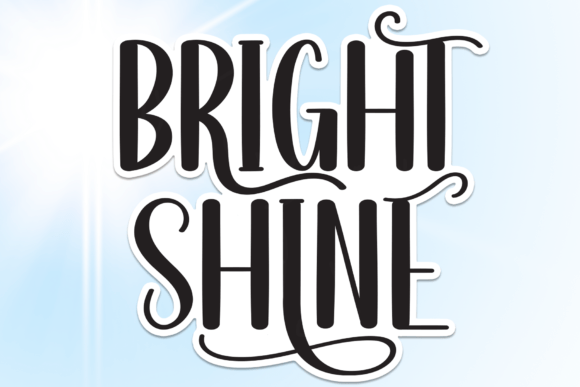
The Bright Shine Font: A Sweet and Friendly Companion for Your Designs
I’ll never forget the time I was working on a project for a client who wanted a custom wedding invitation. I had the perfect design in mind, but I just couldn’t find the right font to match the sweet and playful vibe they were going for. That’s when I stumbled upon the Bright Shine font, and it instantly became the perfect fit. In this article, I’ll share my experience with this lovely font, its features, and how you can make the most of it in your designs.
An Honest Review of Bright Shine
- ✨ Sweet and Friendly Vibe: Bright Shine has a natural and unique style that makes it incredibly fitting for a wide range of designs, from invitations and greeting cards to branding and packaging.
- 💫 Easy to Read: The font’s clear and clean lines make it easy to read, even at smaller sizes.
While Bright Shine is an amazing font, there are a few things to keep in mind:
- 🤔 Limited Formality: Bright Shine is a highly informal font, so it might not be the best choice for very formal or corporate designs.
- ⚠️ Kerning Issues: As with any font, you might encounter some kerning issues, especially when using it at larger sizes. Make sure to adjust the kerning to get the best results.
The Story Behind Bright Shine
Bright Shine was designed with the intention of creating a font that would bring a touch of warmth and friendliness to any design. The designer aimed to create a font that would be easy to read and highly versatile, making it perfect for a wide range of projects. The result is a font that feels both modern and approachable.
Q: What type of projects is Bright Shine best suited for?
A: Bright Shine is perfect for creative and informal projects, such as invitations, greeting cards, and social media graphics.
Q: Does Bright Shine support OpenType features?
A: Yes, Bright Shine supports OpenType features, including glyphs and stylistic alternates.